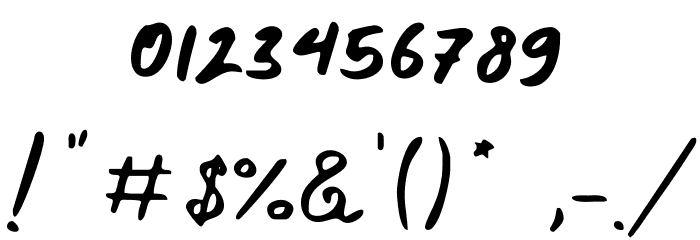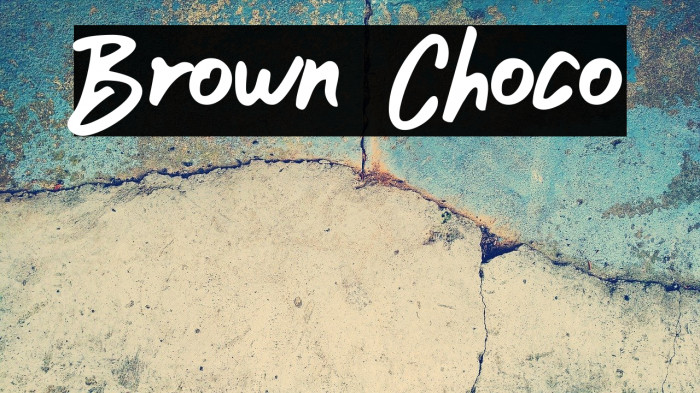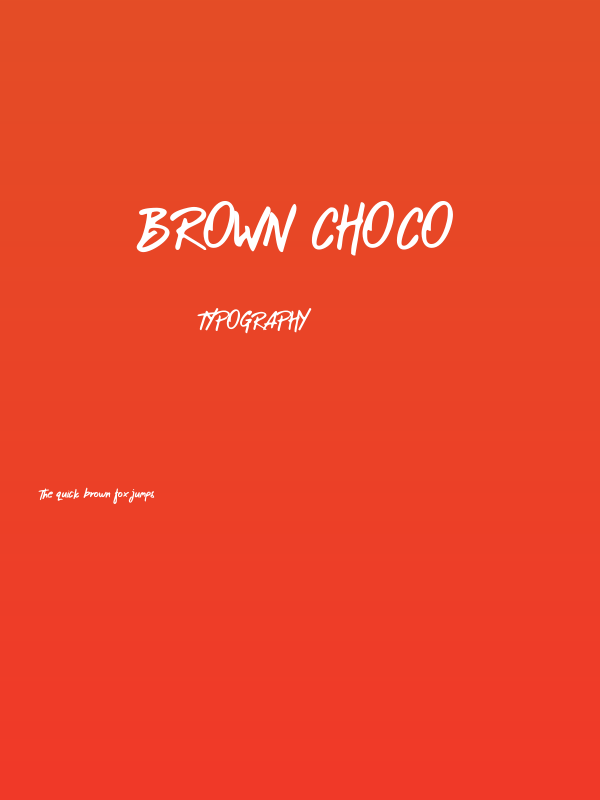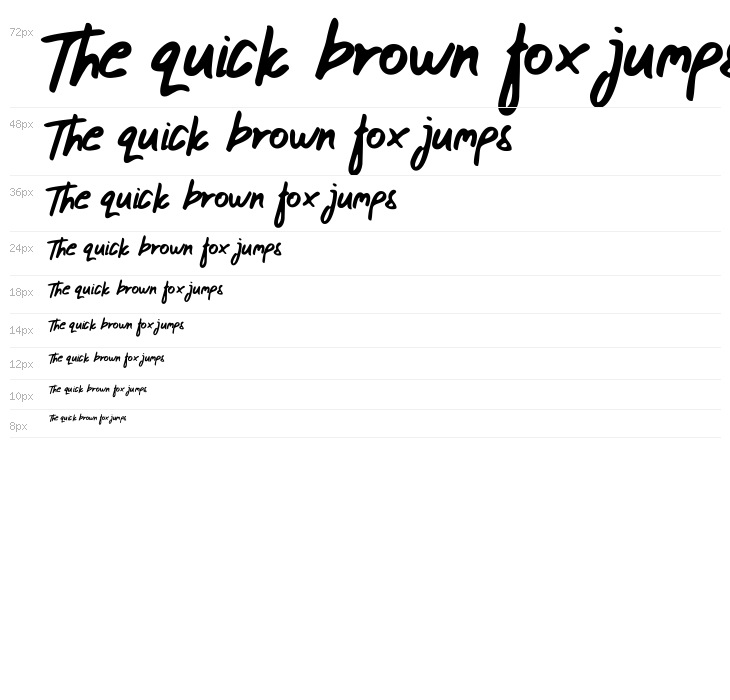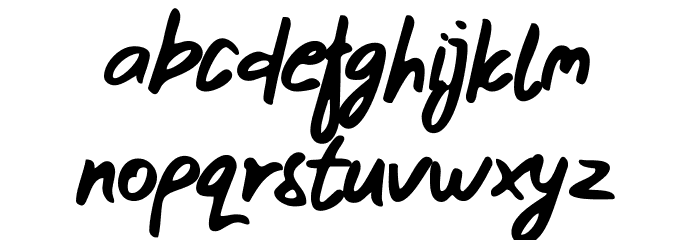
Brown Choco Font
Brown Choco Description
This font exhibits a bold, energetic style with a handwritten appearance. The uppercase letters are dynamic and slightly slanted, giving a sense of movement and flair. The lowercase letters maintain this lively feel, with some characters featuring unique loops and curves that enhance its playful nature. The numbers are consistent with the overall style, offering a cohesive look. Special characters are well-integrated, maintaining the font's expressive and informal tone. This font is ideal for projects that require a personal touch, such as invitations, greeting cards, or creative branding.